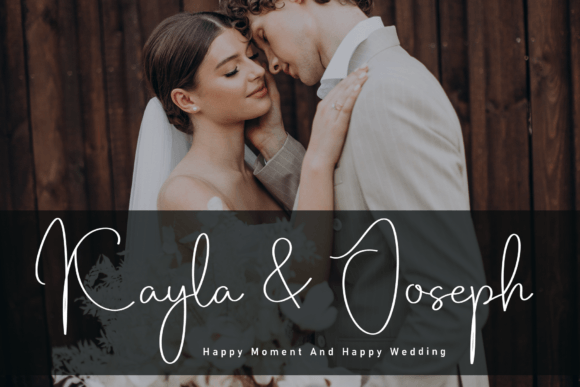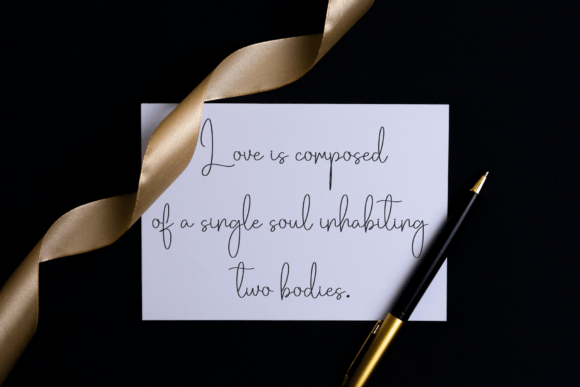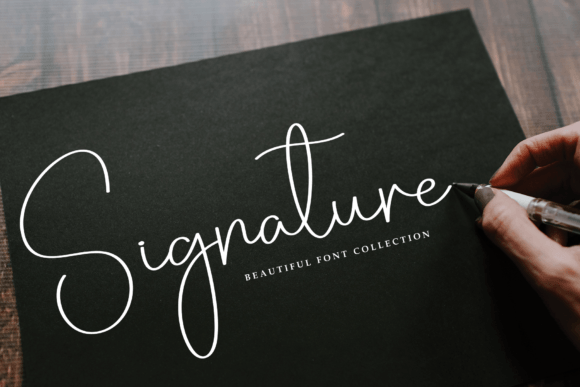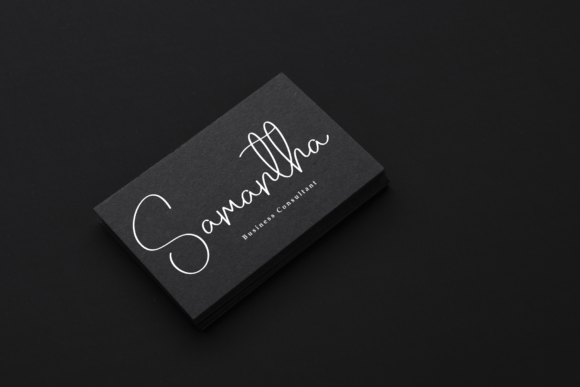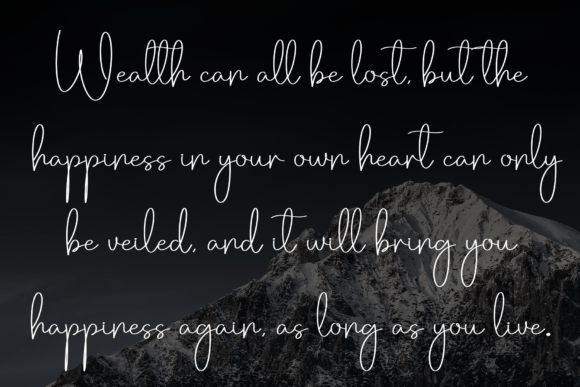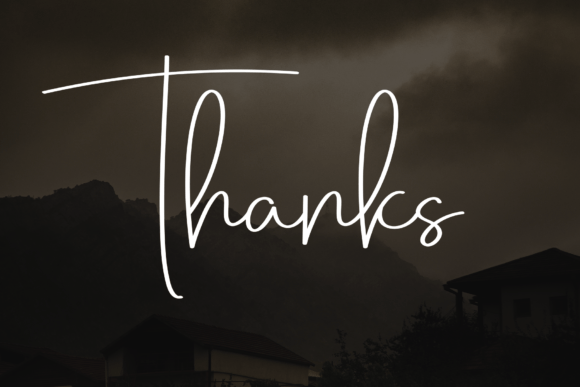
Introduction to Scary Atmosphere Font
Scary Atmosphere is an exquisite handwritten font, masterfully designed to become a true favorite.
Key Features of Scary Atmosphere Font
Why Choose Scary Atmosphere Font?
Scary Atmosphere Font offers exceptional quality and versatility, making it a valuable addition to your design toolkit. Whether you’re creating for personal projects or commercial use, Scary Atmosphere Font delivers professional results.